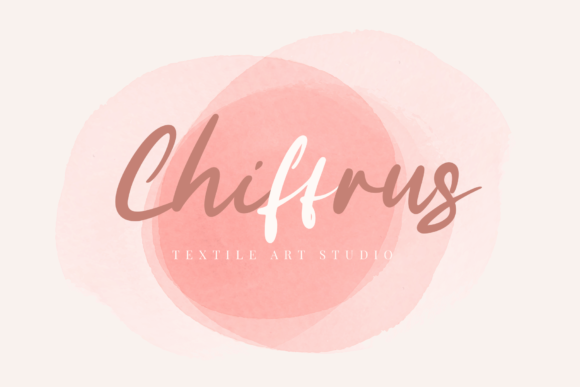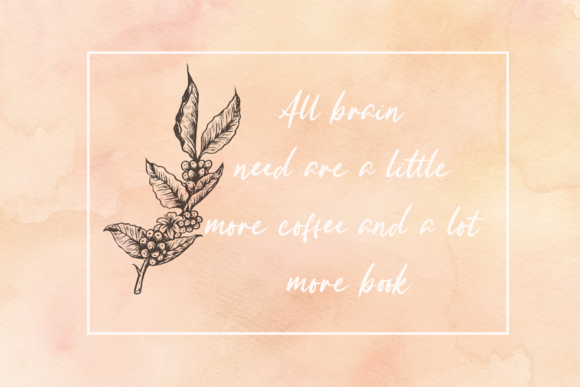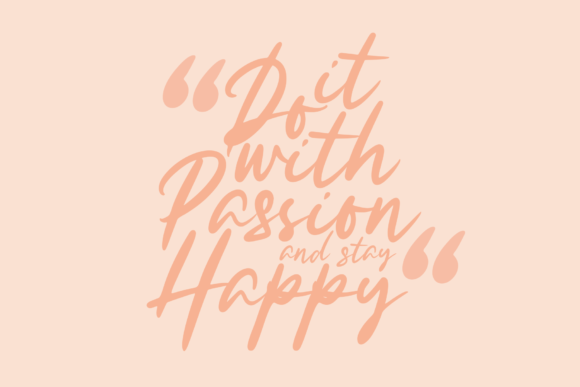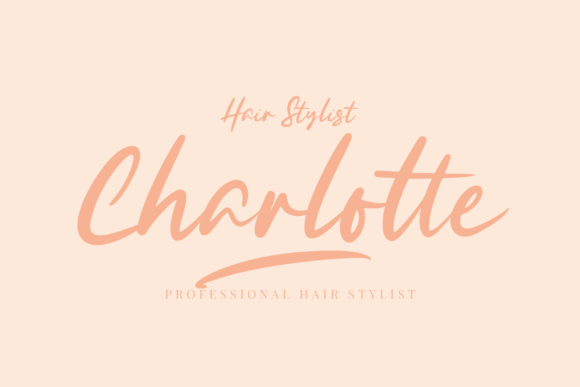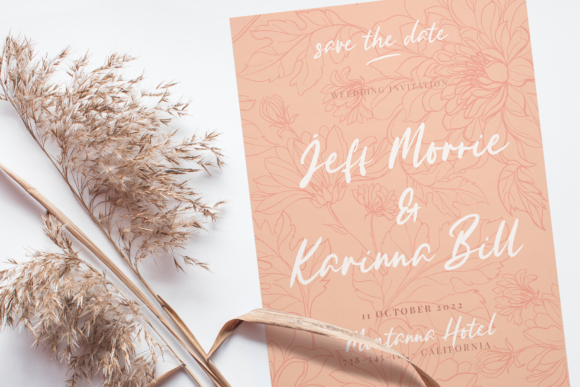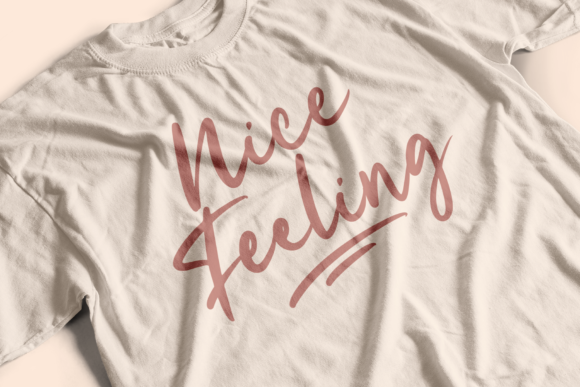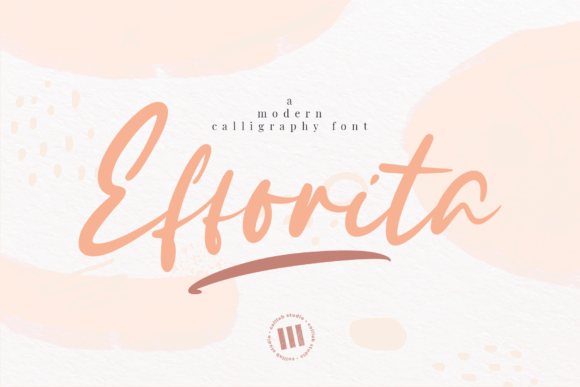
Discover the Elegance of Efforita Font: Elevate Your Designs with Delicate Flair
Are you on the hunt for a font that adds a touch of sophistication and elegance to your designs? Look no further than Efforita Font. This beautiful, handwritten font is characterized by its delicate, flowing lines and well-balanced characters, making it the perfect addition to a wide range of creative projects. In this article, we’ll dive into the world of Efforita Font, exploring its unique features, uses, and benefits for designers and crafters alike.
The Unique Charm of Efforita Font
Efforita Font is a true gem in the world of typography. Its elegant, cursive script is reminiscent of traditional calligraphy, yet it boasts a modern, fresh feel that’s perfect for contemporary designs. Each character is carefully crafted to ensure a smooth flow and harmonious balance, making it a joy to read and behold. Whether you’re working on a logo, branding materials, or a full-scale design project, Efforita Font is sure to add a touch of class and refinement.
Key Features of Efforita Font
• Delicate and Elegant: Efforita Font features delicate, flowing lines that give it an air of sophistication and elegance.
• Well-Balanced Characters: Each character is carefully designed to ensure a harmonious balance, making it easy to read and visually appealing.
• Versatile: Efforita Font matches a wide pool of designs, from modern and minimalist to traditional and ornate.
• Handwritten: The font’s handwritten nature gives it a personal, unique feel that’s perfect for adding a touch of warmth to your designs.
Uses for Efforita Font
Efforita Font is incredibly versatile, making it suitable for a wide range of design projects. Here are just a few ideas to get you started:
• Logos and Branding: Use Efforita Font to create a sophisticated logo or brand identity that sets your business apart.
• Wedding and Event Invitations: Add a touch of elegance to your wedding or event invitations with Efforita Font.
• Stationery and Paper Goods: Use Efforita Font to create beautiful stationery, cards, and paper goods that make a lasting impression.
• Digital Designs: Efforita Font is perfect for digital designs, including social media graphics, website headers, and more.
Efforita Font offers a range of benefits for designers and crafters, including:
• High-Quality Design: The font is carefully crafted to ensure a high level of quality and attention to detail.
• Flexibility: Efforita Font can be used for a wide range of design projects, from print to digital.
• Unique Style: Efforita Font offers a unique, elegant style that’s sure to set your designs apart from the crowd.
In conclusion, Efforita Font is a beautiful, elegant, and versatile handwritten font that’s perfect for designers and crafters looking to add a touch of sophistication to their designs. With its delicate, flowing lines and well-balanced characters, Efforita Font is sure to elevate your creative projects and make them come alive. So why wait? Discover the elegance of Efforita Font today and take your designs to the next level!